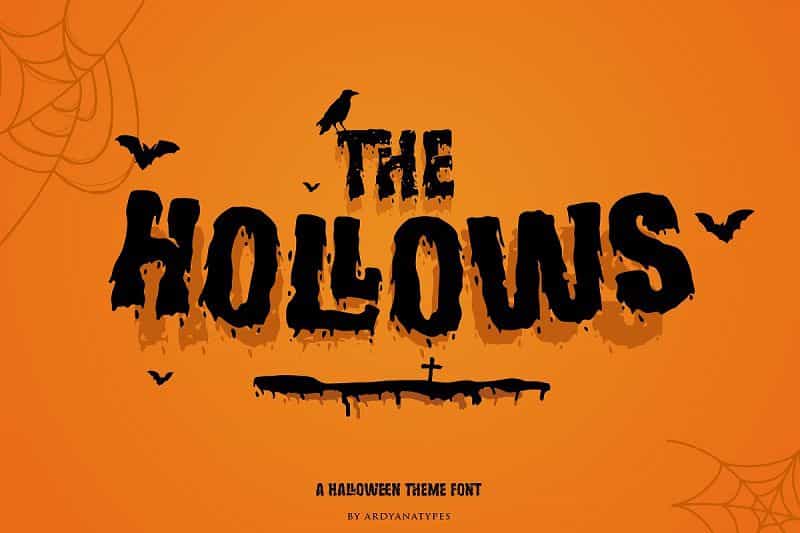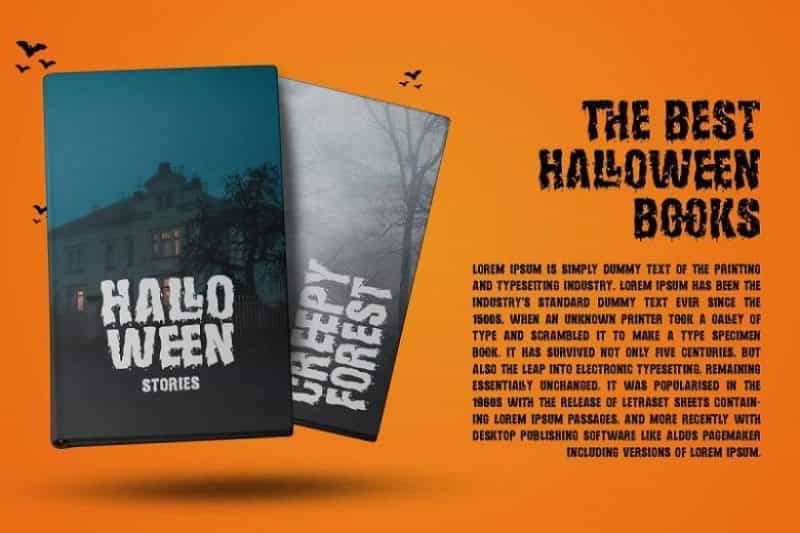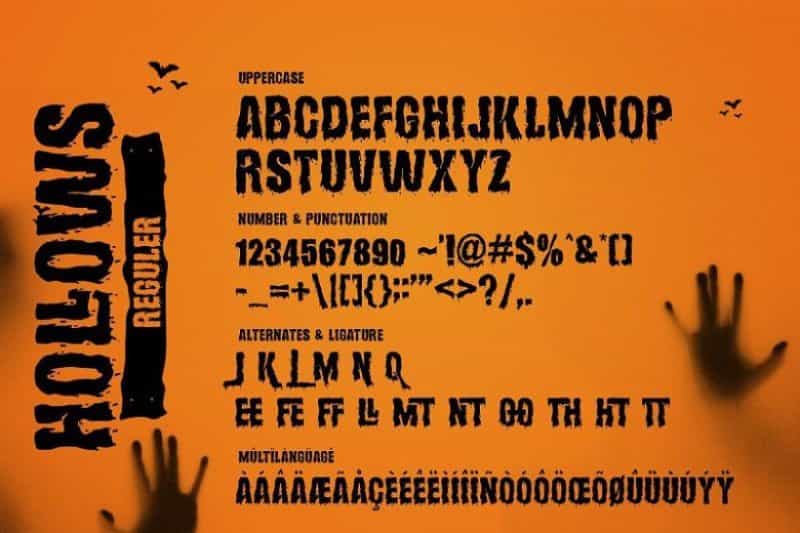
The Hollows is a Display font designed with a horror and thick feel. Hollows comes with two types of styles: Regular and Rude and also it has several options for each style and Ligature that make it look more beautiful and very convenient to use. Hollows is also installed with Multilanguage for use in different languages.